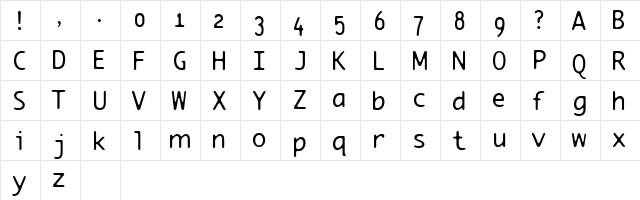
Element Regular
Element offers clean, dependable letterforms without strong stylistic allegiance, making it a practical choice for designers who need flexibility.